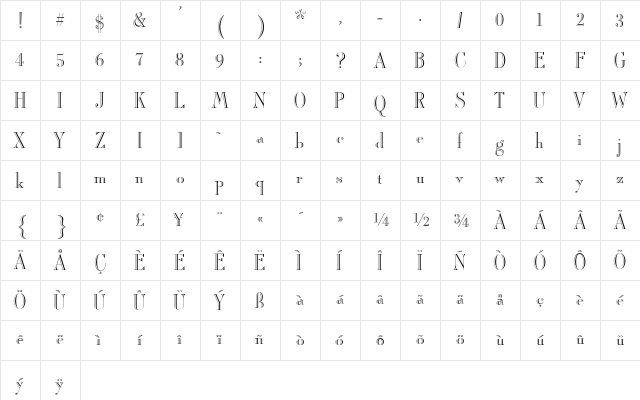
Sackers Antique Roman Open AT Regular Font Preview
Sackers Antique Roman Open AT Regular
Sackers Antique Roman Open AT Regular Font Details
Design Context for Sackers Antique Roman Open AT Typeface
Sackers Antique Roman Open AT wears its vintage influences proudly, with letterforms that recall mid-century signage, classic packaging, and nostalgia-driven design.
Font Pairing: Combine Sackers Antique Roman Open AT with a simple slab or neutral sans — period-accurate companions reinforce the vintage feel without competing for attention.
Pro Tip: Lean into Sackers Antique Roman Open AT's period character by pairing it with aged paper textures, muted colour palettes, and vintage illustration styles.